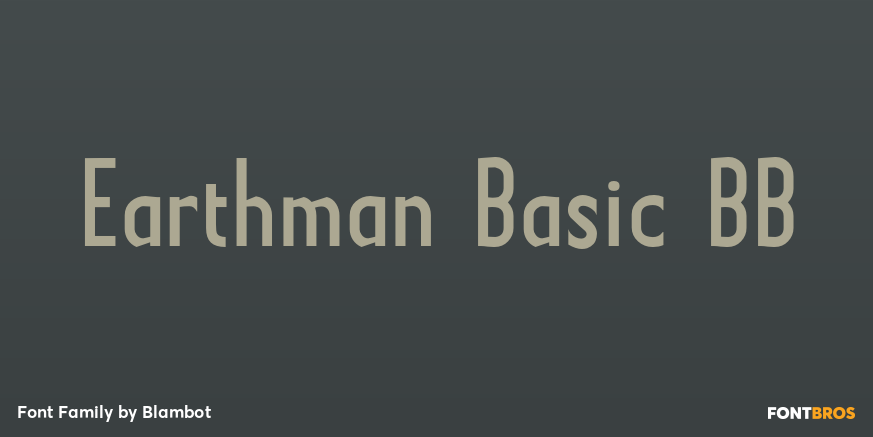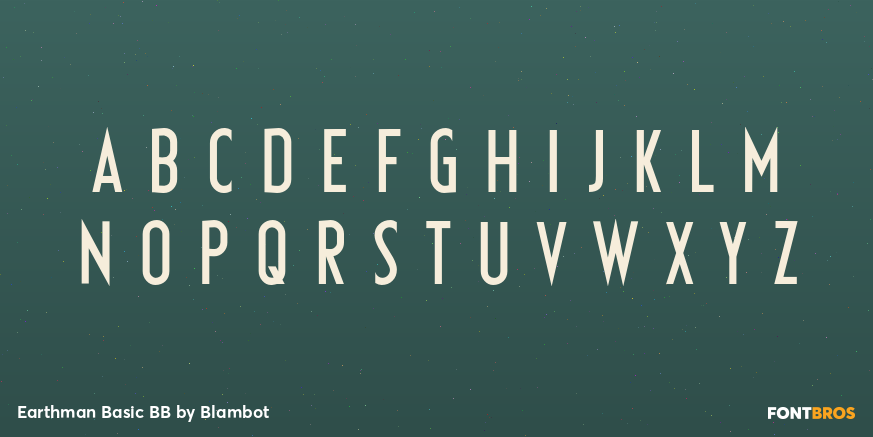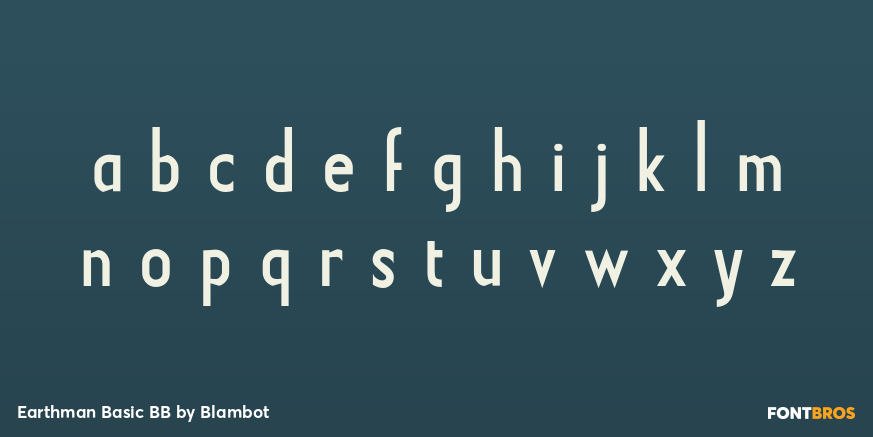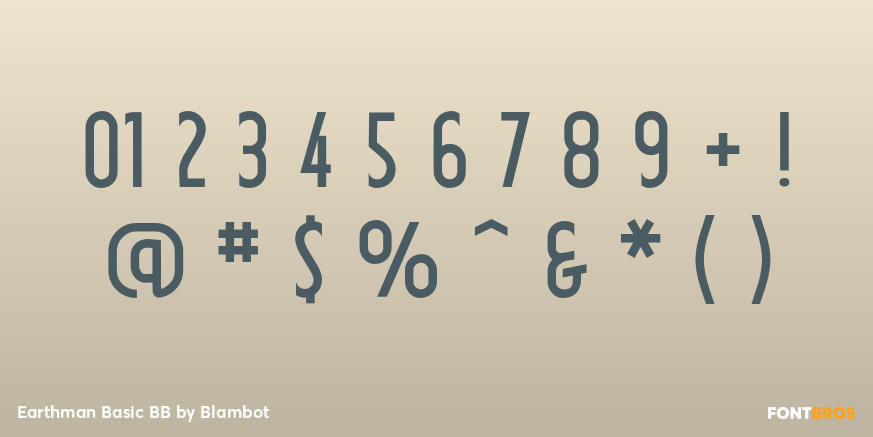
Earthman Basic BB
Font Family by Blambot
Clear. Concise. Condensed. Earthman BB has a touch of classic science fiction of yesteryear and is perfect for header copy in both upper and lowercase. Comes with 4 styles and has plenty of European characters.
Now also available in extended and heavy sets.